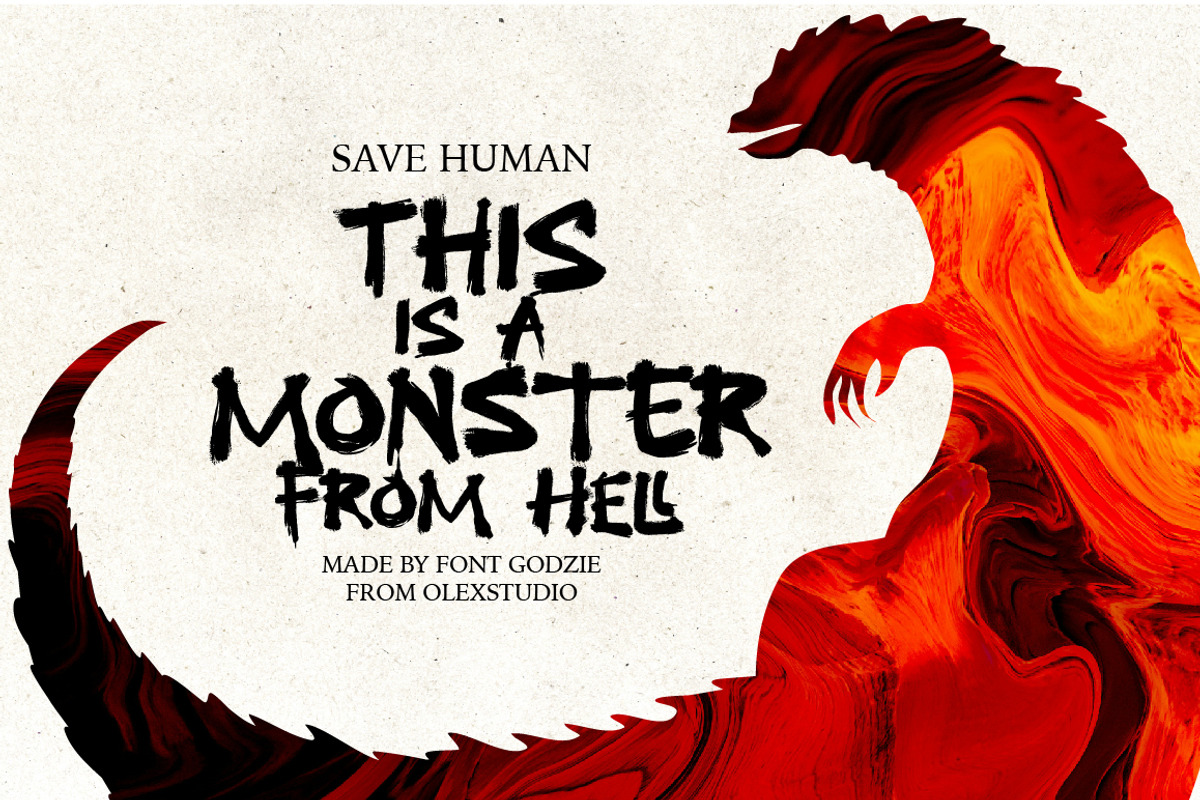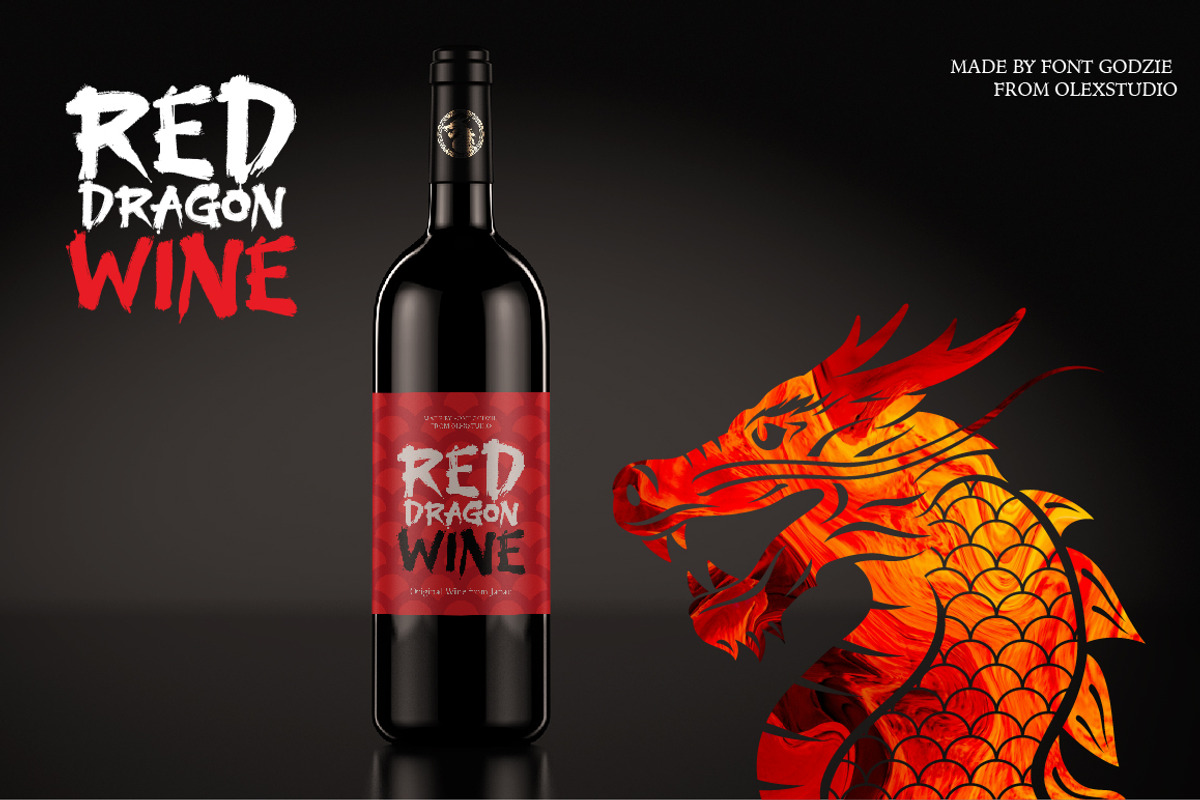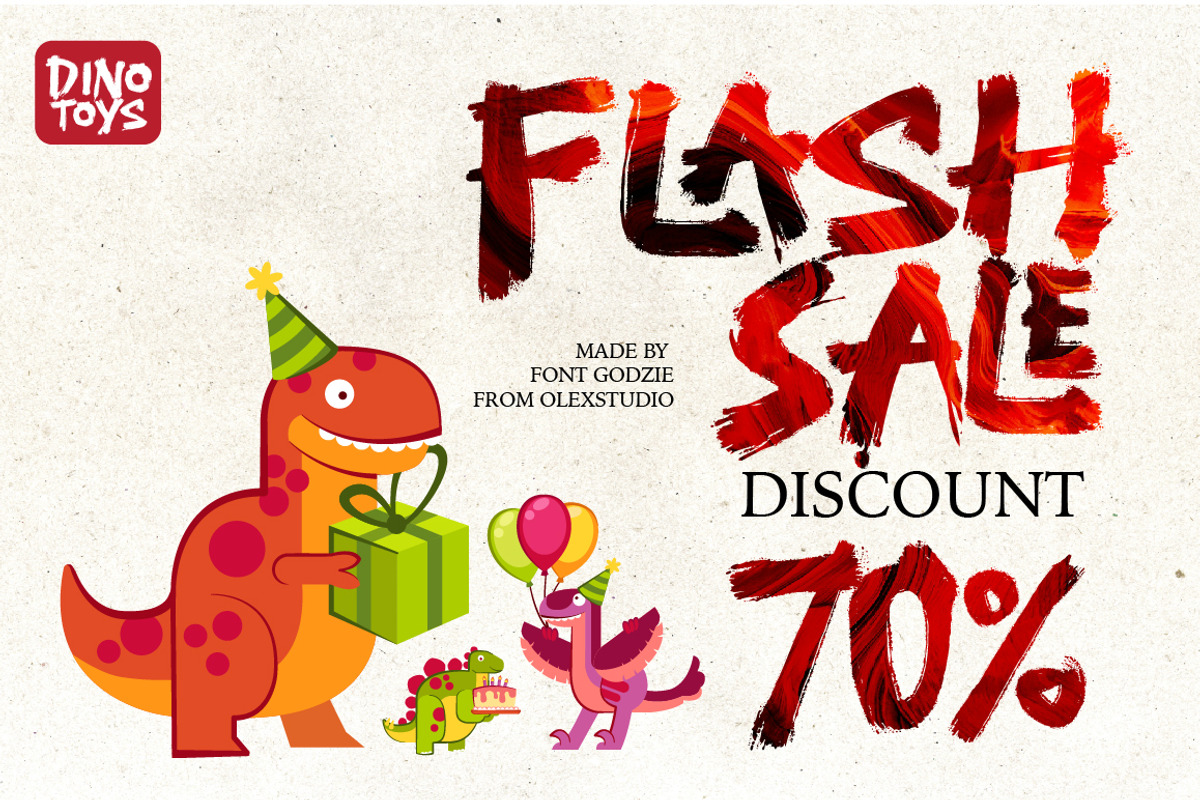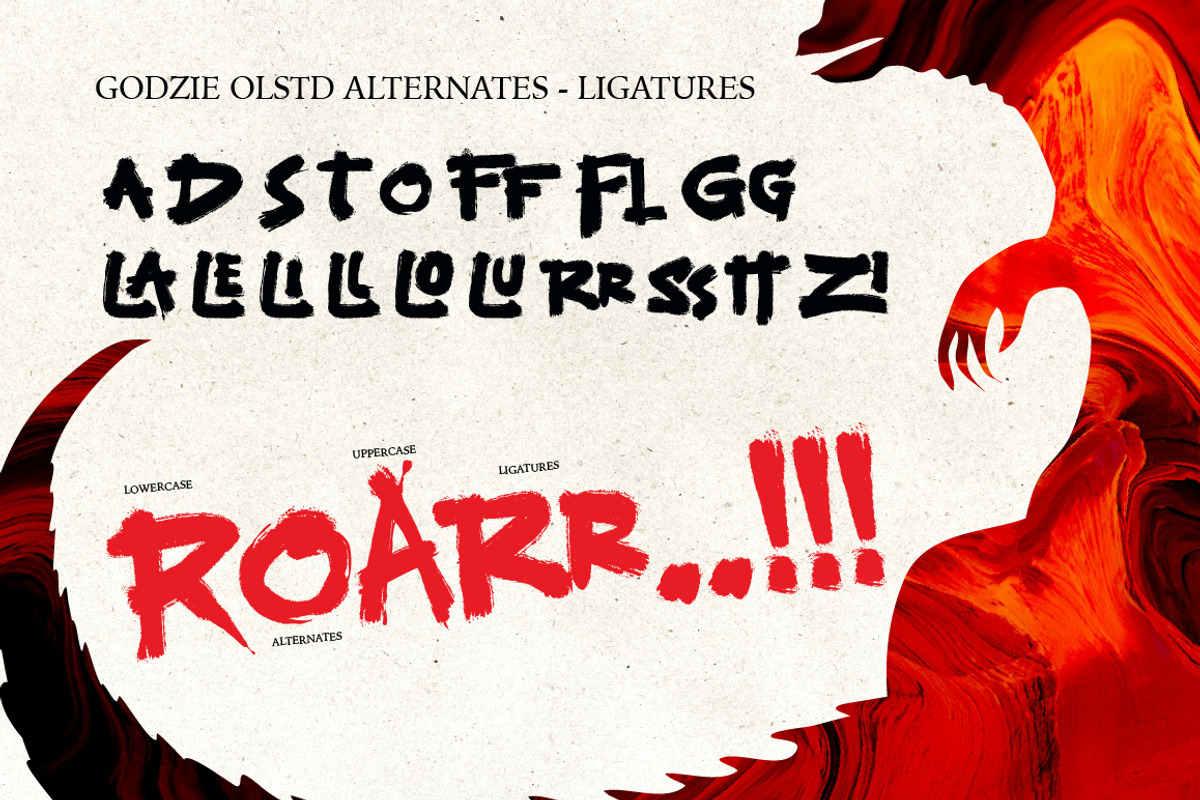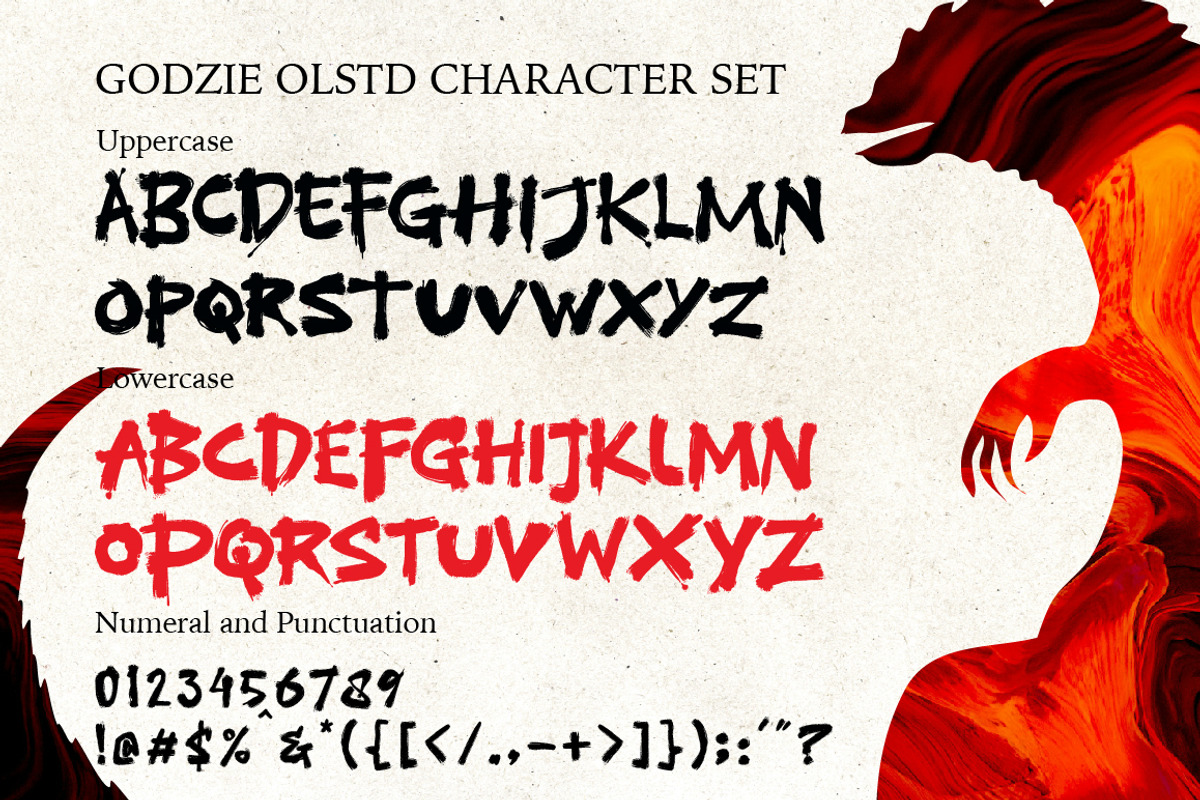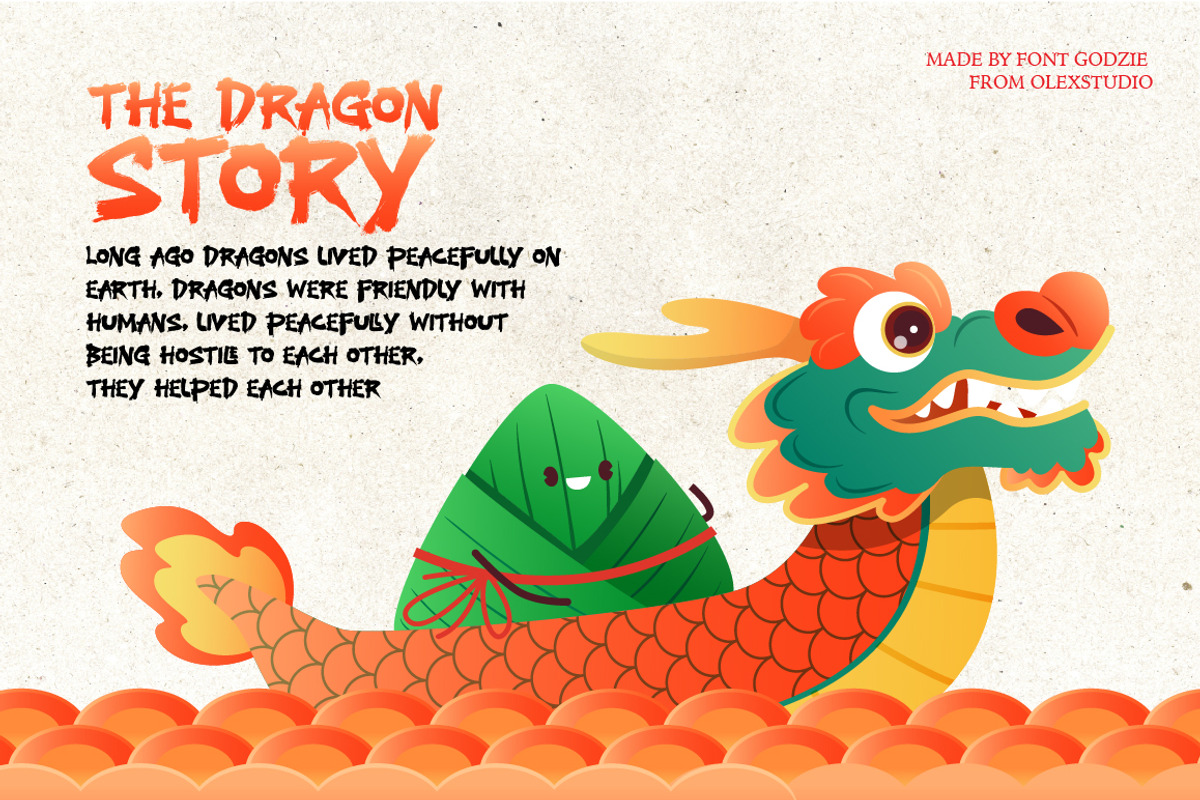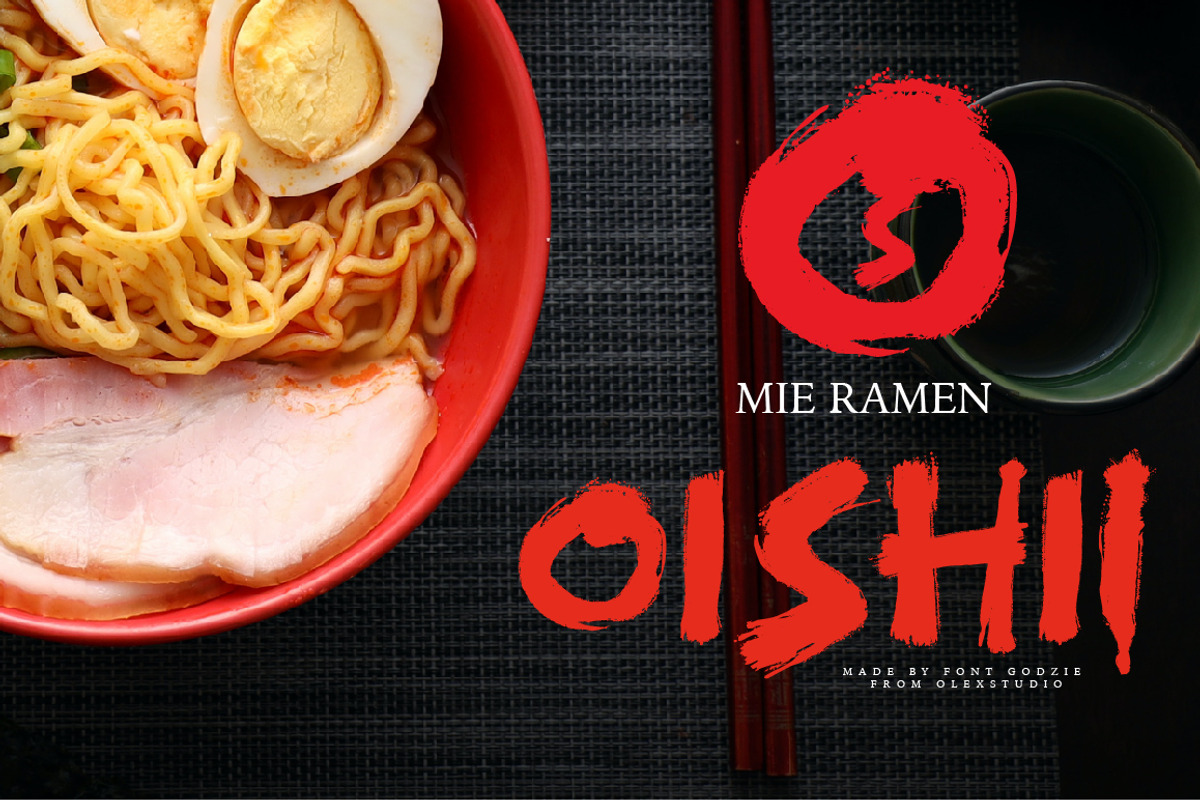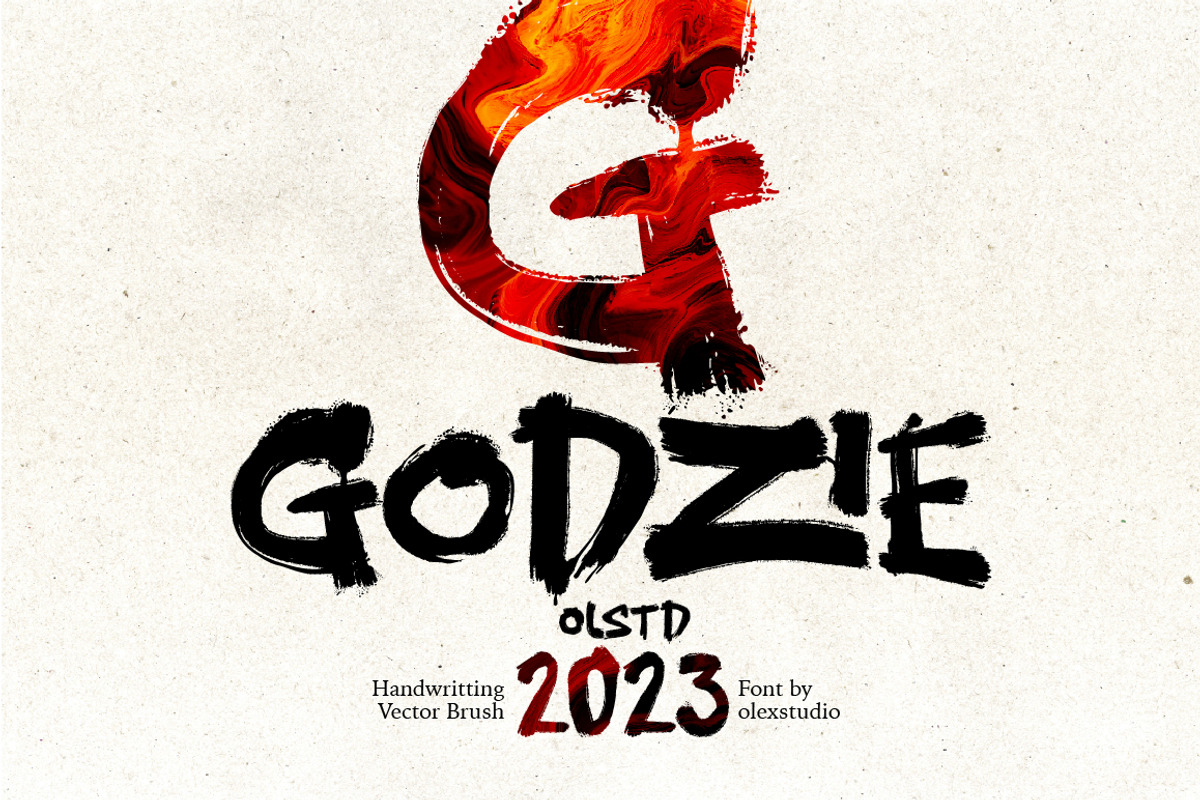
GODZIE Olstd - Handwritten Brush
GODZIE Olstd Handwritten Brush Font will look gorgeous on all your designs, poster design, book design, branding materials, logo's, and all project design other.
GODZIE Olstd Handwritten Brush Font contains standard characters, All Chacacter is Uppercase, numbers, punctuation, Alternates, ligatures and international glyphs. You will receive OTF, TTF files & WEBFONT.